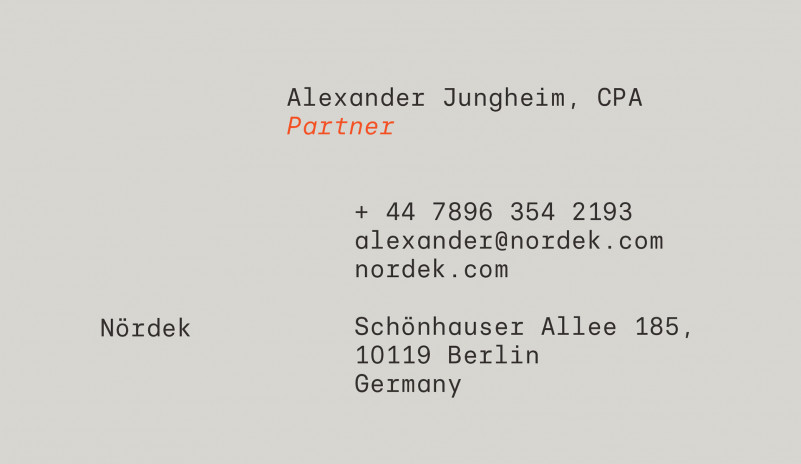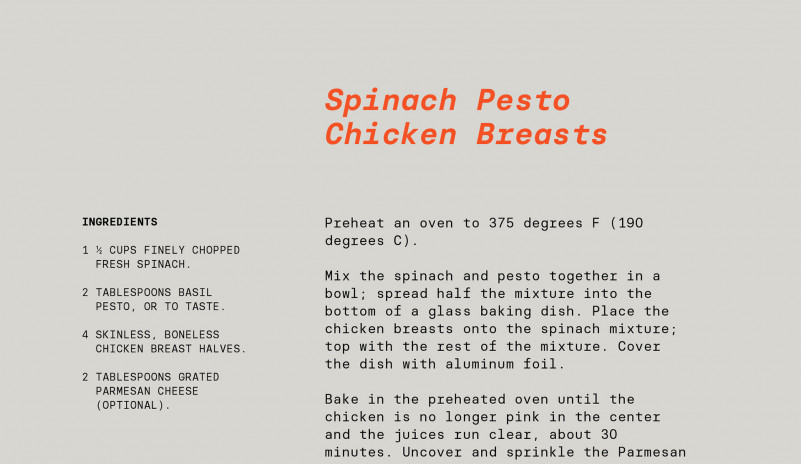
Basier Mono Font Family – Free Demo
This is a geometric sans serif and modern mono font in two family variations. This font is Inspired by modernism and industrial graphic design, it combines elegance and precision and works well in titles and headlines! Introducing Basier Mono Font. It’s based on the successful Basier font family. Inspired by the International Style, is a neo-grotesque sans serif typeface available in two variants, Circle & Square. The result is a modern and neutral font family that is ideally suited for logotypes, branding, editorial design as well as web and screen design. It’s provides a distinct, creative, and expressive message for branding, advertising, packaging, headlines, magazines, websites, logos, and more.